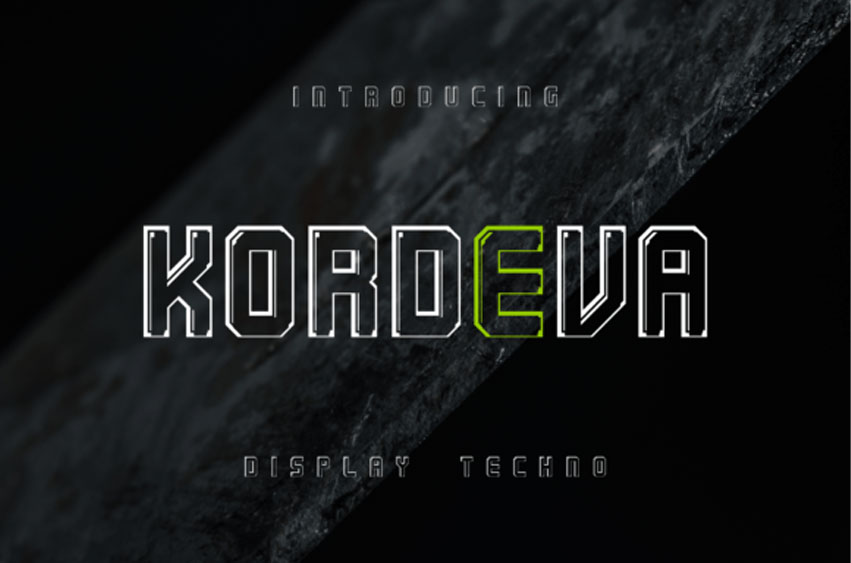
Kordeva Font is a technology inspired display typeface. This font has the theme of strength, specifically for products that are strong and sturdy.
Use it for your logos, posters, movie title, banners, web design, social media and so much more.